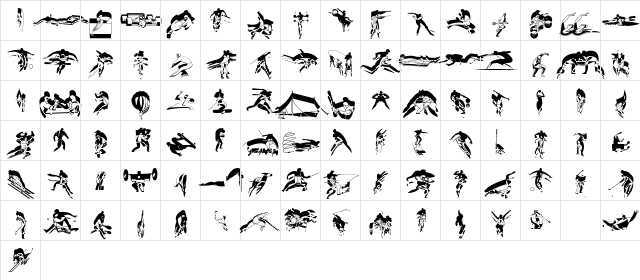
DF Energetics Regular Font Preview
DF Energetics Regular
Design Context for DF Energetics Typeface
DF Energetics is a composed and adaptable typeface that performs quietly and consistently across a wide range of design contexts.